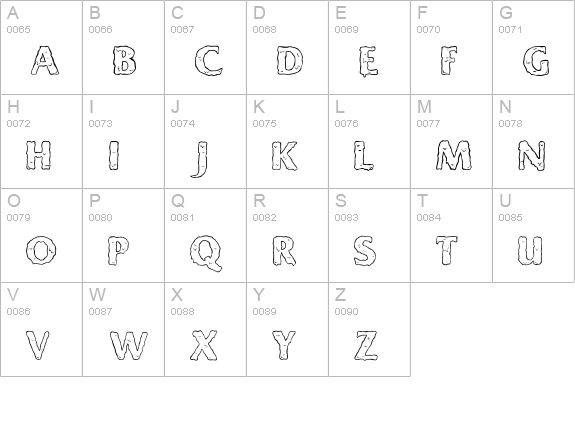
Ooky Font Details
Introducing the whimsical and eye-catching Ooky font! This unique typeface features playful and quirky characters that are sure to make your designs stand out. The Ooky font is perfect for adding a touch of fun and personality to any project, whether it's a poster, invitation, or social media graphic. Best of all, the Ooky font is completely free to download at FontsMarket.com. That's right, you can add this charming font to your collection at no cost! So why wait? Download the Ooky font today and let your creativity soar with its delightful and distinctive style.